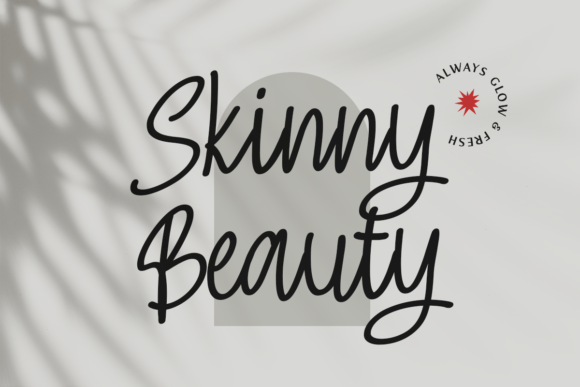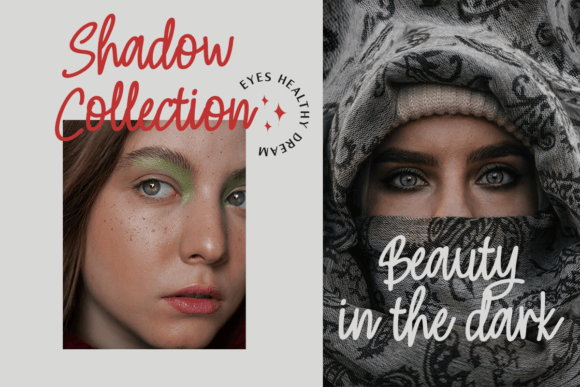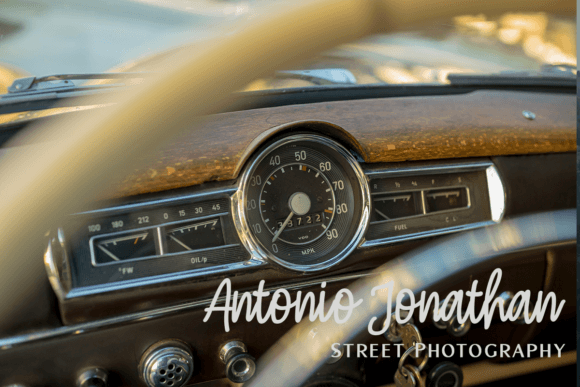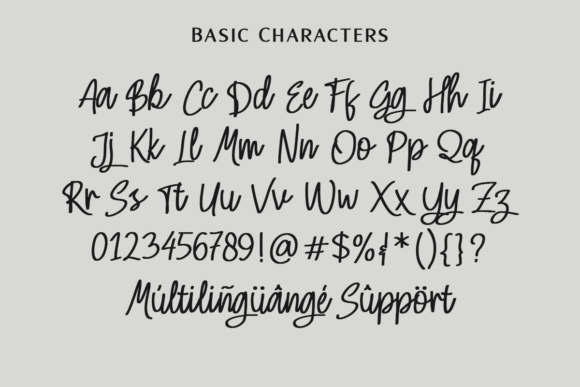
Introduction to Skinny Signature Font
Have you ever stared at a blank page, waiting for inspiration to strike, only to have it hit you like a ton of bricks as you scribble down a beautiful, handwritten phrase? For designers and creatives, those moments are what make all the hard work worth it. And when you have the right tools at your disposal, those moments become even more magical. That’s where the Skinny Signature Font comes in – a stunning, high-quality handwritten font that’s sure to elevate any project to the next level.
This fantastic design resource is perfect for anyone looking to add a touch of whimsy and personality to their work. Whether you’re creating digital images, logos, or even print-on fabrics, the Skinny Signature Font is the perfect addition to your creative arsenal. And the best part? It’s available for free download, making it an accessible resource for designers of all levels.
Key Features of Skinny Signature Font
- Unique, modern design perfect for creative projects and personal branding.
- High-quality font with precise details, ideal for logos, signatures, and other design elements where clarity is crucial.
- Perfect design resource for creatives, entrepreneurs, and businesses seeking a unique and professional touch.
Honest Review: Skinny Signature Font
I recently stumbled upon the Skinny Signature Font while searching for a free download to elevate my design projects. As a designer, I appreciate high-quality resources that can help me create visually appealing designs.
The Skinny Signature Font does not disappoint. It features a beautiful, modern aesthetic with a transparent background, making it perfect for use on any design surface.
- ✨ Sleek and modern design that’s perfect for creative projects
- ✨ High-quality glyphs that render well on various devices
- ⚠️ Limited character set, which may not be ideal for complex texts or large body of text
- ⚠️ Some users may find the font too thin, which can make it difficult to read in certain contexts
Overall, I’m impressed with the Skinny Signature Font. While it has some limitations, its unique design and high-quality glyphs make it a valuable addition to any design library. I’d recommend it for use on logos, headers, and other design elements where a modern, minimalist look is desired.
Designing with Skinny Signature Font
Adding a touch of elegance to your creative project is effortless with the Skinny Signature Font. This high-quality design resource features a sleek and modern aesthetic, perfect for personal or professional branding.
Tips for Getting the Most Out of Skinny Signature Font
Experiment with different font sizes and colors to achieve the perfect balance for your design. Pair the Skinny Signature Font with other fonts for a unique and eye-catching combination.
Common Use Cases for Skinny Signature Font
Use the Skinny Signature Font for: